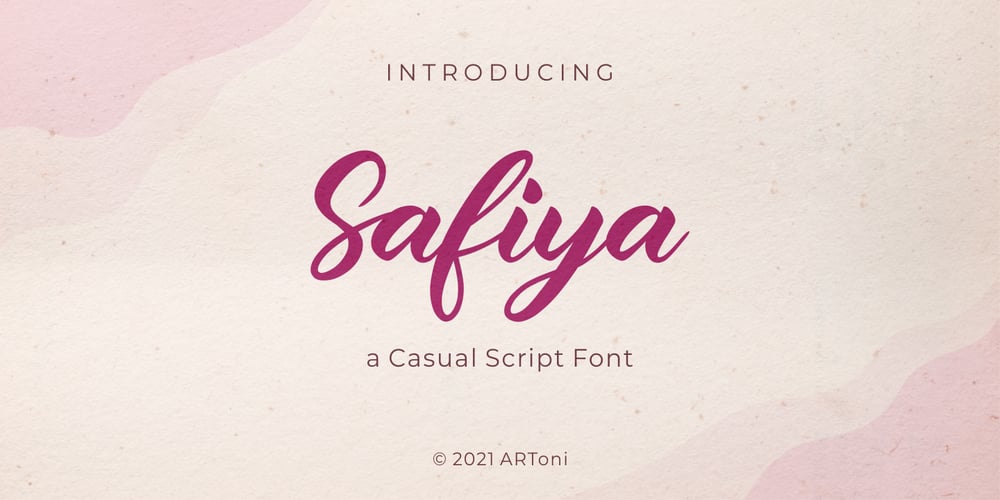
Safiya
Safiya font
Safiya Font Family was designed by Anthonie Van Hayu and published by ARToni. Safiya contains 1 styles and family package options. Safiya is a lovely script font featuring charming, playful characters that seem to dance along the baseline. Add this font to your most creative ideas, and notice how it makes them stand out!